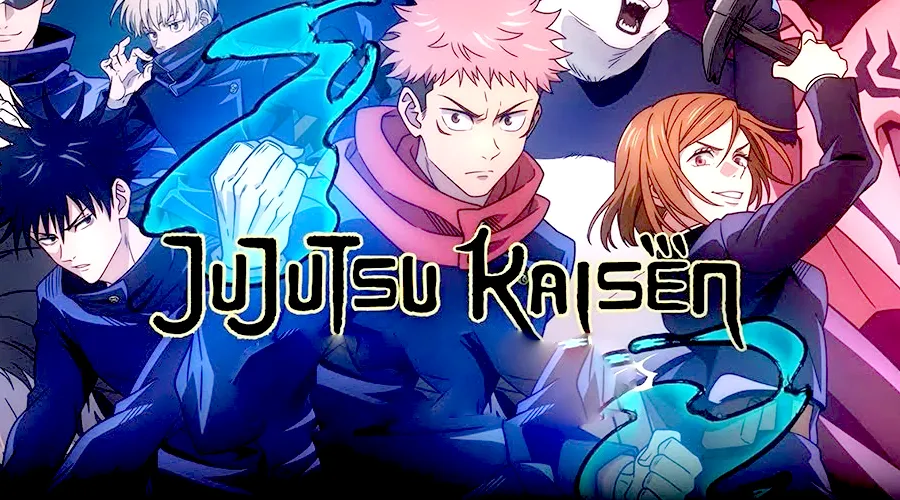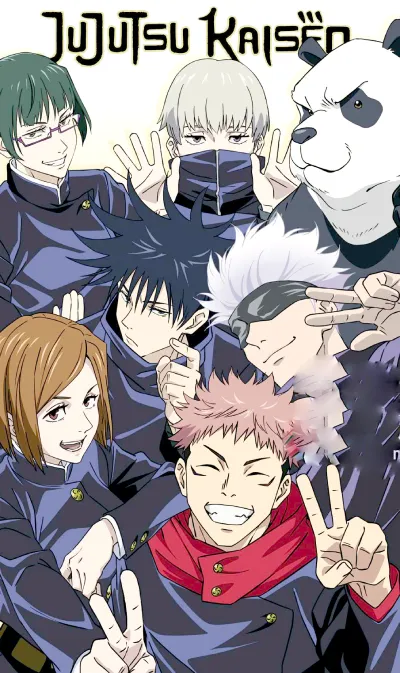
Quick answer: The Jujutsu Kaisen logo is custom, stylized lettering rather than a publicly released retail font. The Jujutsu Kaisen file is a fan-made visual replica; Qetod is an FG Studios fan-made visual alternative that is not officially licensed or credited; Meanwhile Regular is a comic-style alternative for manga text, not the official logo font.
That distinction matters for both accuracy and licensing. A replica can be useful for fan art or visual study, but a filename that matches the series title is not proof that the production studio created or licensed it. Always check the documentation attached to the individual font file.
Preview Jujutsu Kaisen-style fonts
Use the gallery to compare the replica letterforms directly. Try the same short phrase in Jujutsu Kaisen and Qetod, then use Meanwhile Regular only when you want a looser comic or dialogue look.
Why the Jujutsu Kaisen logo looks hand-built
The official anime artwork uses uneven strokes, pointed terminals, compressed spacing, and irregular forms that support the supernatural tone of the series. Those details behave more like a drawn title mark than a neutral alphabet intended for body copy.
The official anime site shows the current logo and campaign artwork but does not publish a downloadable Latin typeface or a public font credit. For that reason, this guide separates the official visual reference from community-created replicas instead of calling every matching file “the original font.”
What each Jujutsu Kaisen-style file represents
These files answer different needs. The Jujutsu Kaisen file is the closest title-shaped replica, but its metadata does not make it an official production font. Qetod is an FG Studios fan-made visual alternative, not an officially licensed or credited production font; its free and commercial editions have separate terms. Meanwhile is a commercial Comicraft lettering face for captions and manga-like support text, not a free logo font.
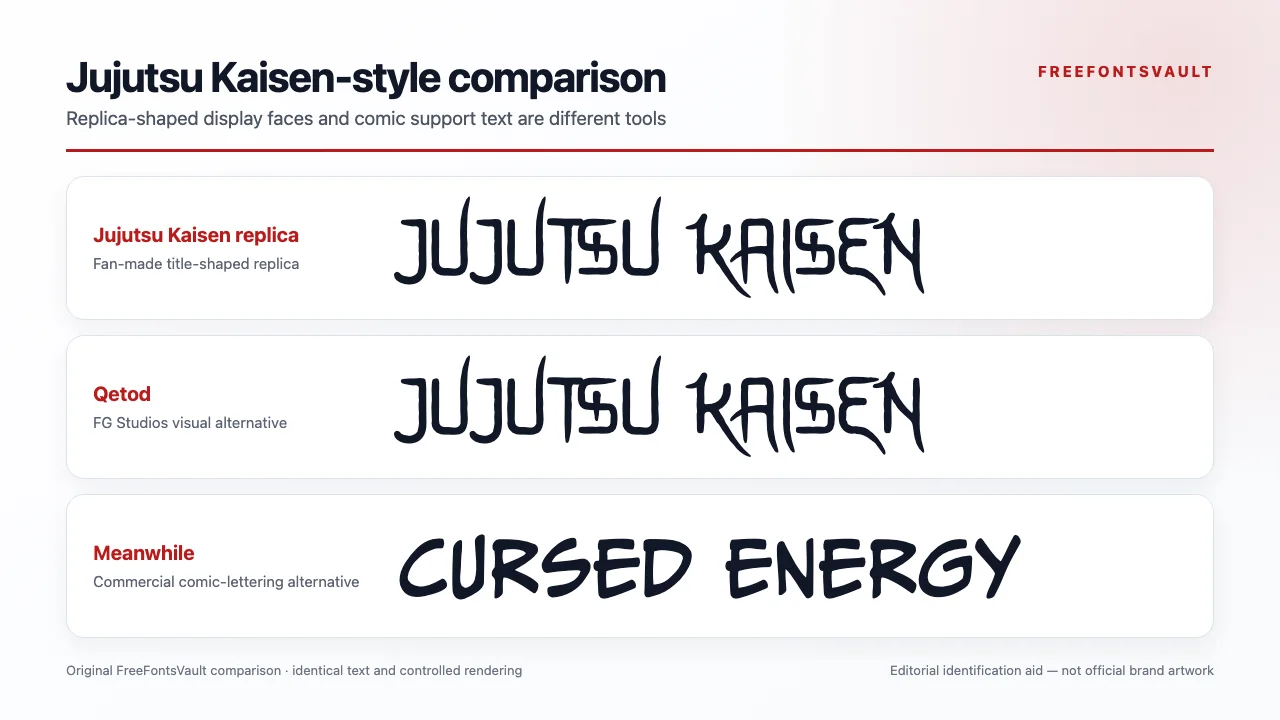
Jujutsu Kaisen fan replica
The most direct option for recreating the recognizable English title rhythm. Use it for comparison and personal experimentation only to the extent allowed by its accompanying license.
Qetod Regular
Another angular replica-style choice. Its individual glyphs do not match every part of the official mark, so compare the letters in your exact wording before selecting it.
Meanwhile Regular
A separate comic-lettering alternative that works better for captions, speech, or manga-inspired layouts than for claiming an exact logo match.
How to make Jujutsu Kaisen-style text
- Enter a short title and compare the two replica fonts before adding effects.
- Use tight but readable spacing; the official mark feels compact without becoming a solid shape.
- Test dark ink, off-white, and a restrained red accent rather than relying on effects alone.
- Add rough texture or an irregular outline after choosing the strongest glyph match.
- Export at a large size so sharp terminals and thin interior spaces remain clear.
A generator can approximate the mood, but it cannot turn a fan replica into an official asset. Keep attribution and licensing clear when sharing the result.
They should be treated as fan-made replicas or visual alternatives unless their creator documentation proves an official license.
Compare the Jujutsu Kaisen replica and Qetod in the preview. The best choice depends on the letters in your own wording.
It is a comic or manga-style text alternative rather than an exact match for the main anime logo.